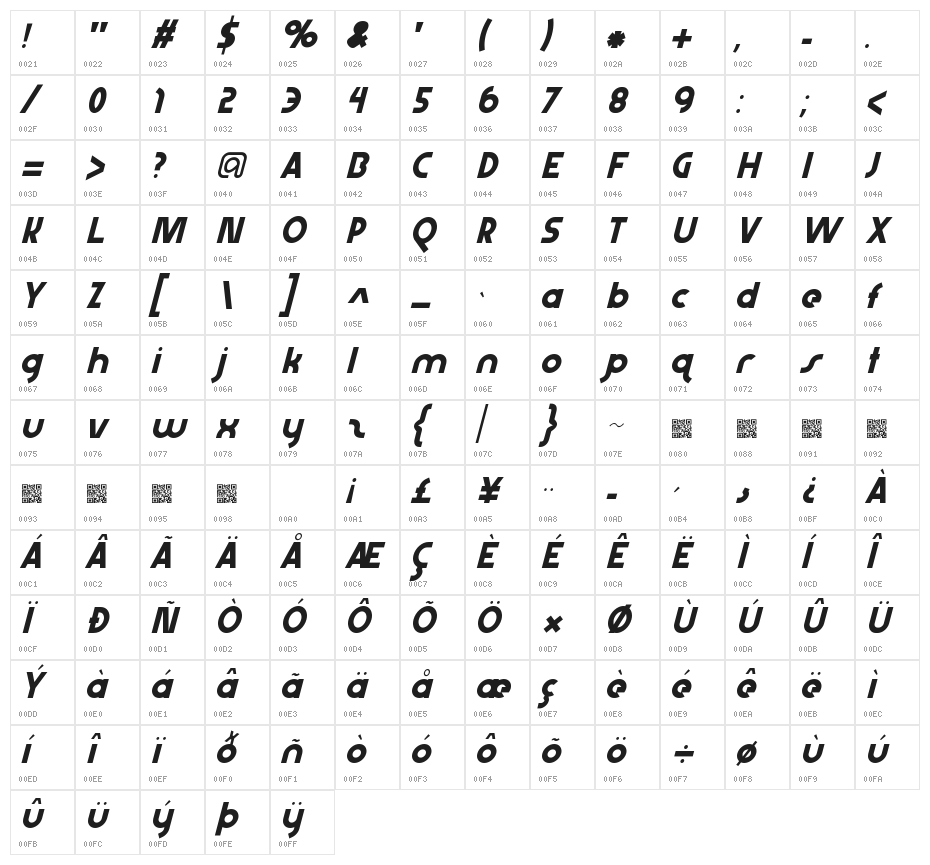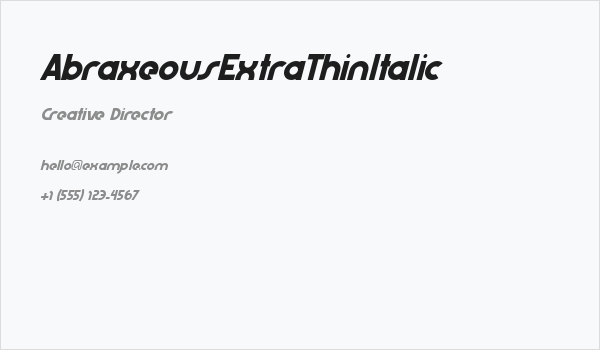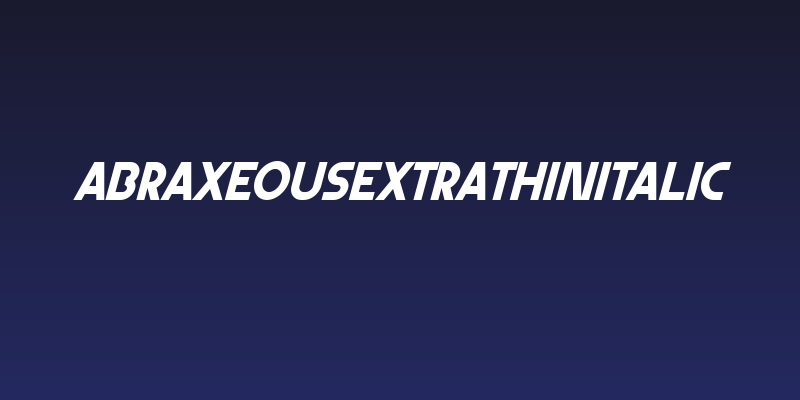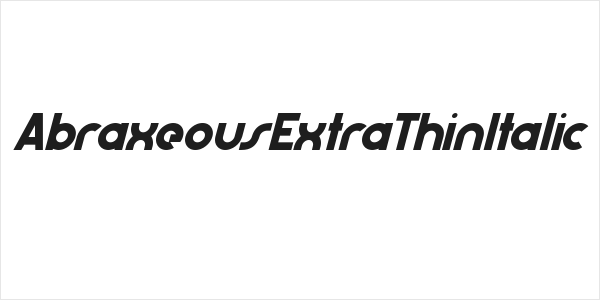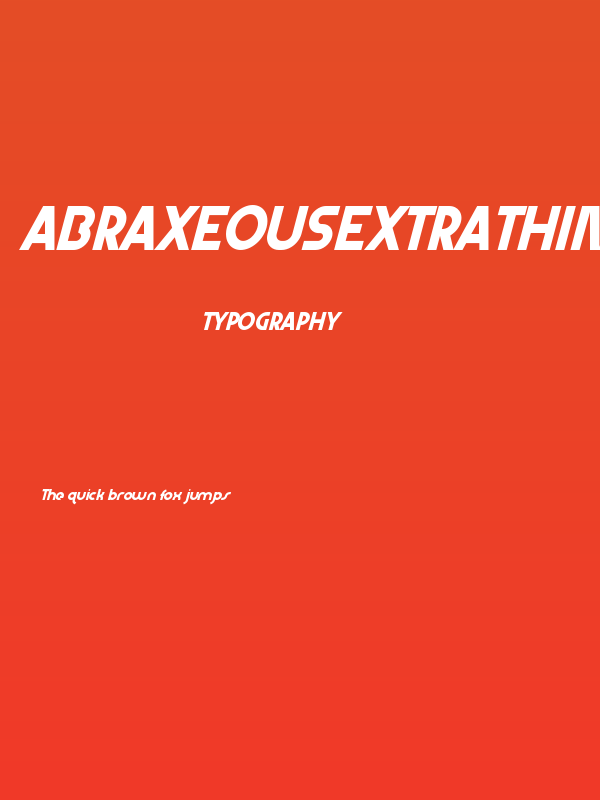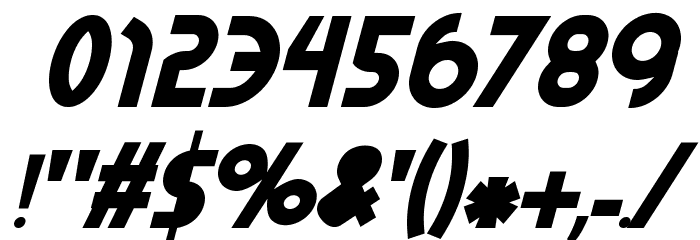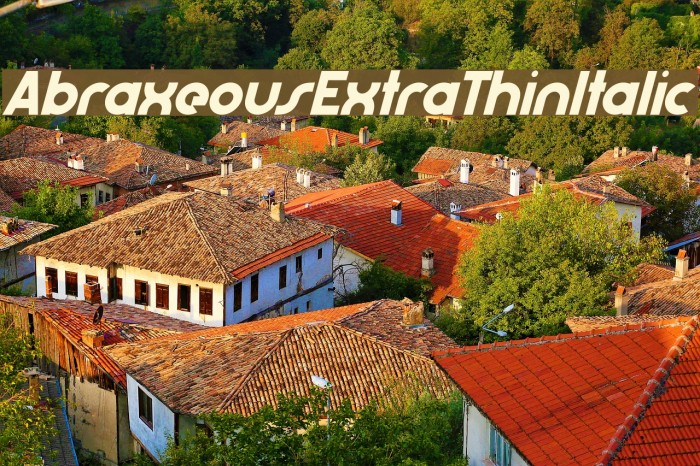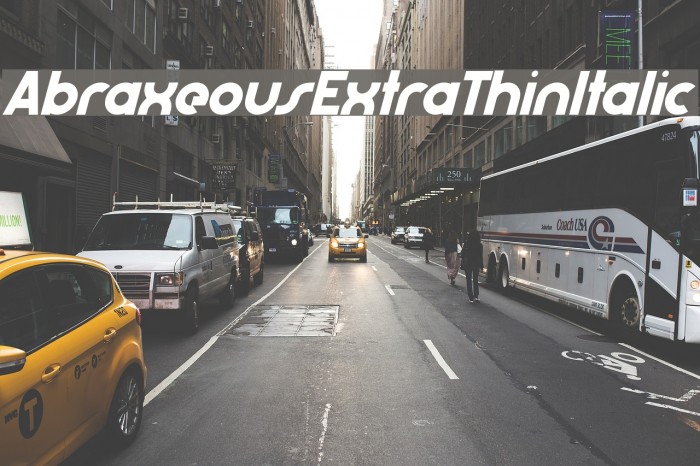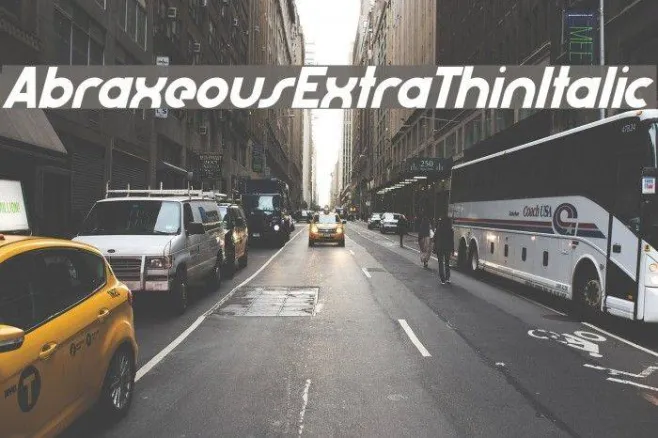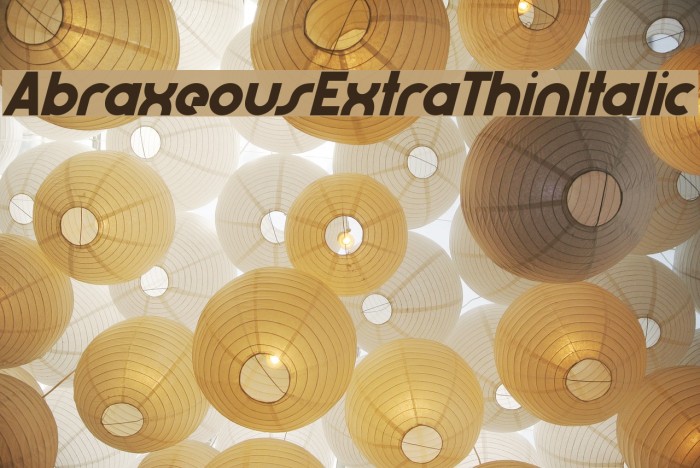
AbraxeousExtraThinItalic Font
AbraxeousExtraThinItalic Description
This font features a dynamic and modern design with a distinct italic slant, giving it a sense of motion and energy. The characters are bold and slightly condensed, with smooth curves and sharp angles that create a sleek and futuristic appearance. The uppercase letters are tall and commanding, while the lowercase letters maintain a consistent flow, enhancing readability. The numerals are robust and align well with the overall style, making them suitable for impactful displays. Special characters are designed with the same attention to detail, ensuring a cohesive look across all glyphs.
| Width | Condensed |
| Use Case | Headlines, Logos, Branding |
| Proposed Projects | Ideal for branding, advertising, headlines, and any project requiring a bold and modern aesthetic. |